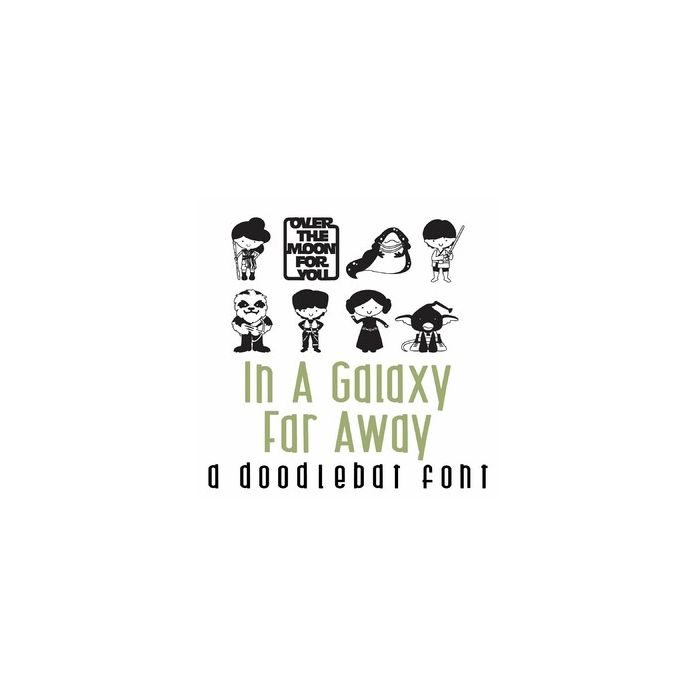
This fun doodlebat font features 36 fun alien and space characters. Perfect for cards, crafts, gifts, decor, scrap book pages, planner stickers and more! Glyphs are A-Z and 0-9.